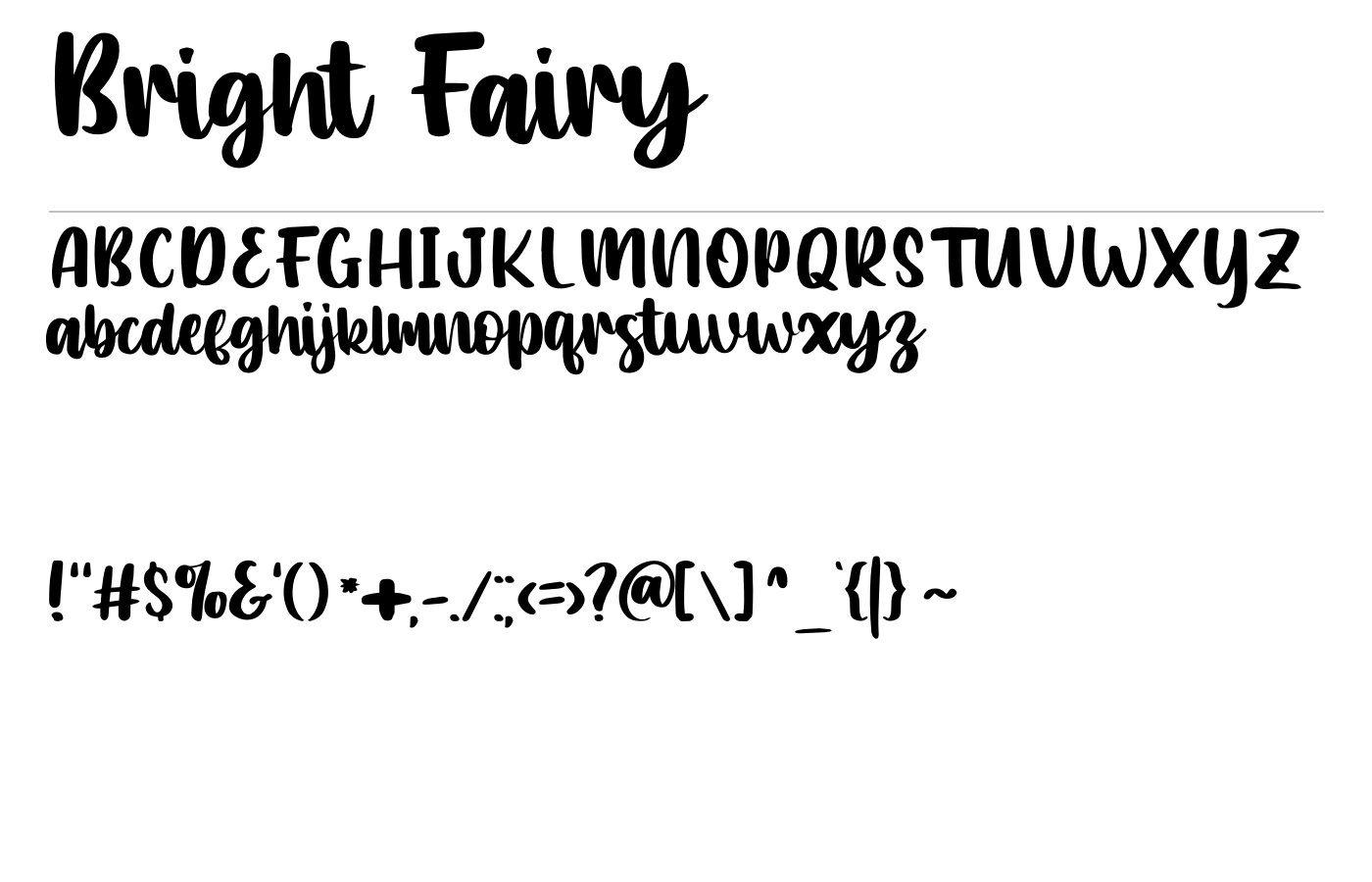
Bright Fairy is a bold, playful script font with a hand-drawn, casual feel. Its rounded, lively letterforms and consistent stroke weight create an inviting and friendly atmosphere, perfect for informal branding, children’s designs, or creative projects that need a warm, approachable vibe. This font works well in headlines, logos, and packaging where a fun and energetic touch is desired.
Bright Fairy Font
About Bright Fairy Font
| Font family | Bright Fairy Font |
| Designer | Krakenbox Studio |